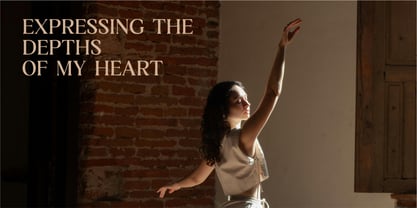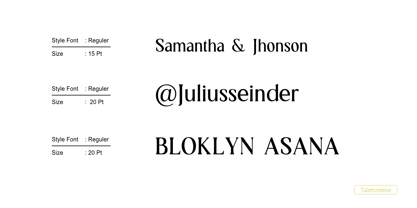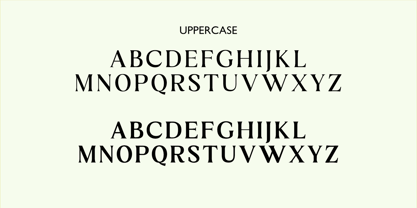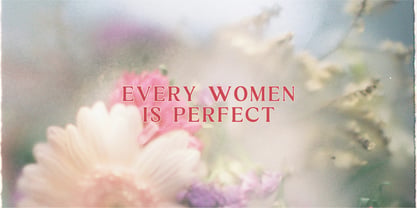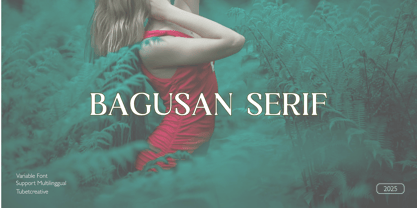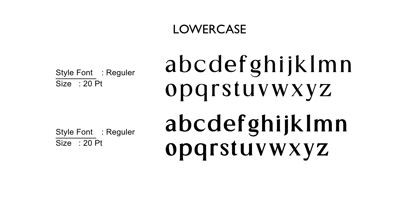
Bagusan Serif
by Tubet Creative
The Bagusan Serif Font Family was designed by and published by Tubet Creative. Bagusan Serif contains 2 styles and family package options. More about this family
Introducing Bagusan Serif: Adaptive Modern Serif for Impressive Poster Designs
Stand out with Bagusan serif, a contemporary serif typeface family that combines classic elegance with modern simplicity. Specifically designed to deliver a strong visual impact, this font is an ideal choice for a variety of design needs, especially posters that require high appeal and readability.
Bagusan serif features clean, proportionate letterforms with subtle serif touches that give an elegant yet minimalist feel. Details such as sharp yet soft angles, and a balance between thick and thin lines, create an interesting and timeless visual character. Its modern style ensures that this font can be easily combined with other design elements without looking outdated.